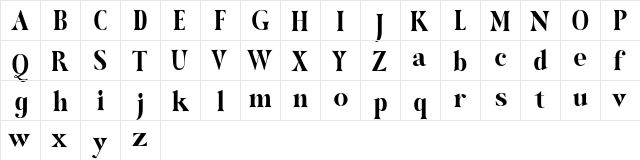
Hybridea UltraBold
| Foundry | Leonhard Katschner |
| Designer | Leonhard Katschner |
Design Context for Hybridea Typeface
Hybridea offers clean, dependable letterforms without strong stylistic allegiance, making it a practical choice for designers who need flexibility. The heavy weight commands attention and anchors typographic hierarchies.